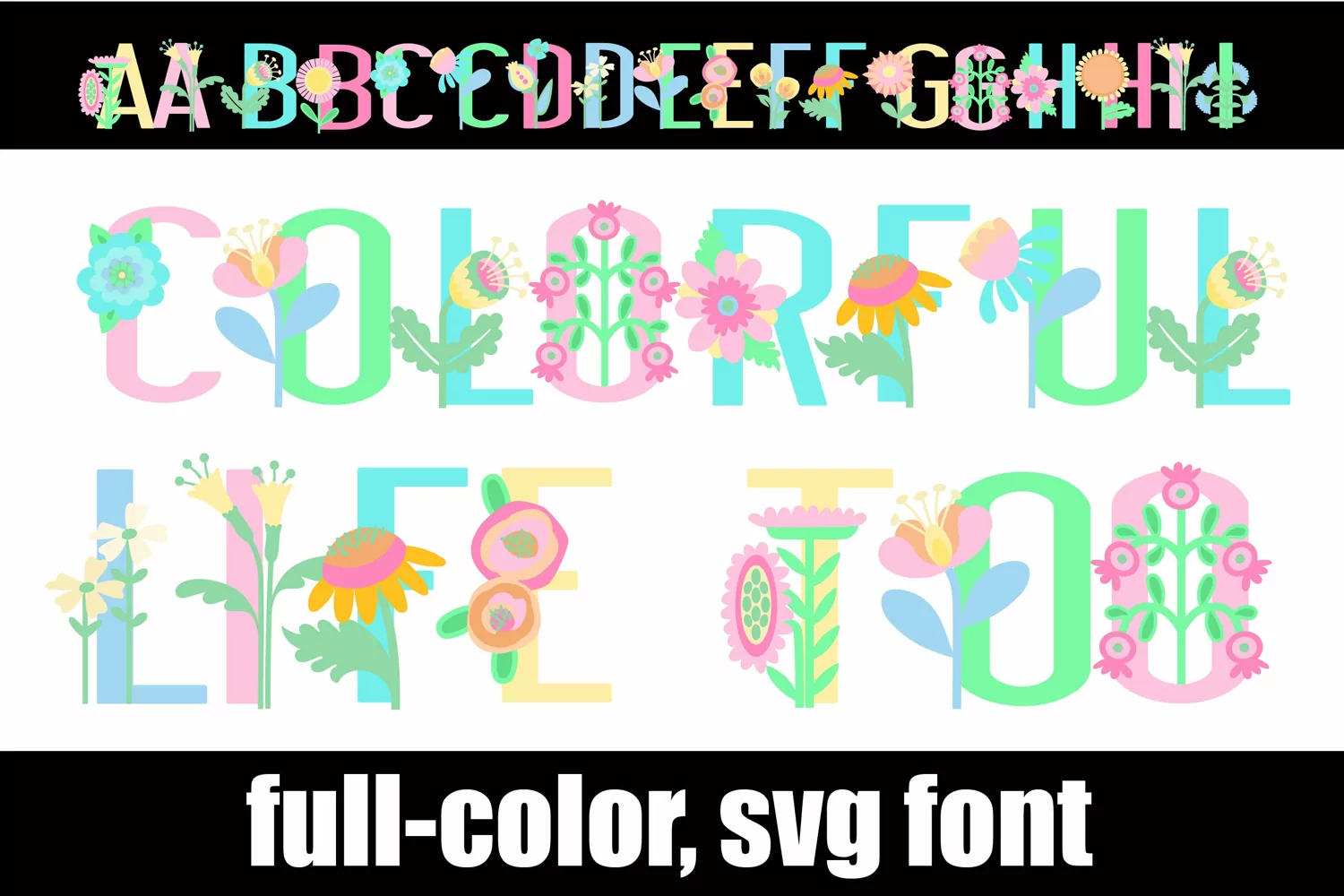
Colorful Life Too
This full-color font features beautiful sans serif lettering with spring florals on each letter. There is an alt case available with alternate colors of each letter.